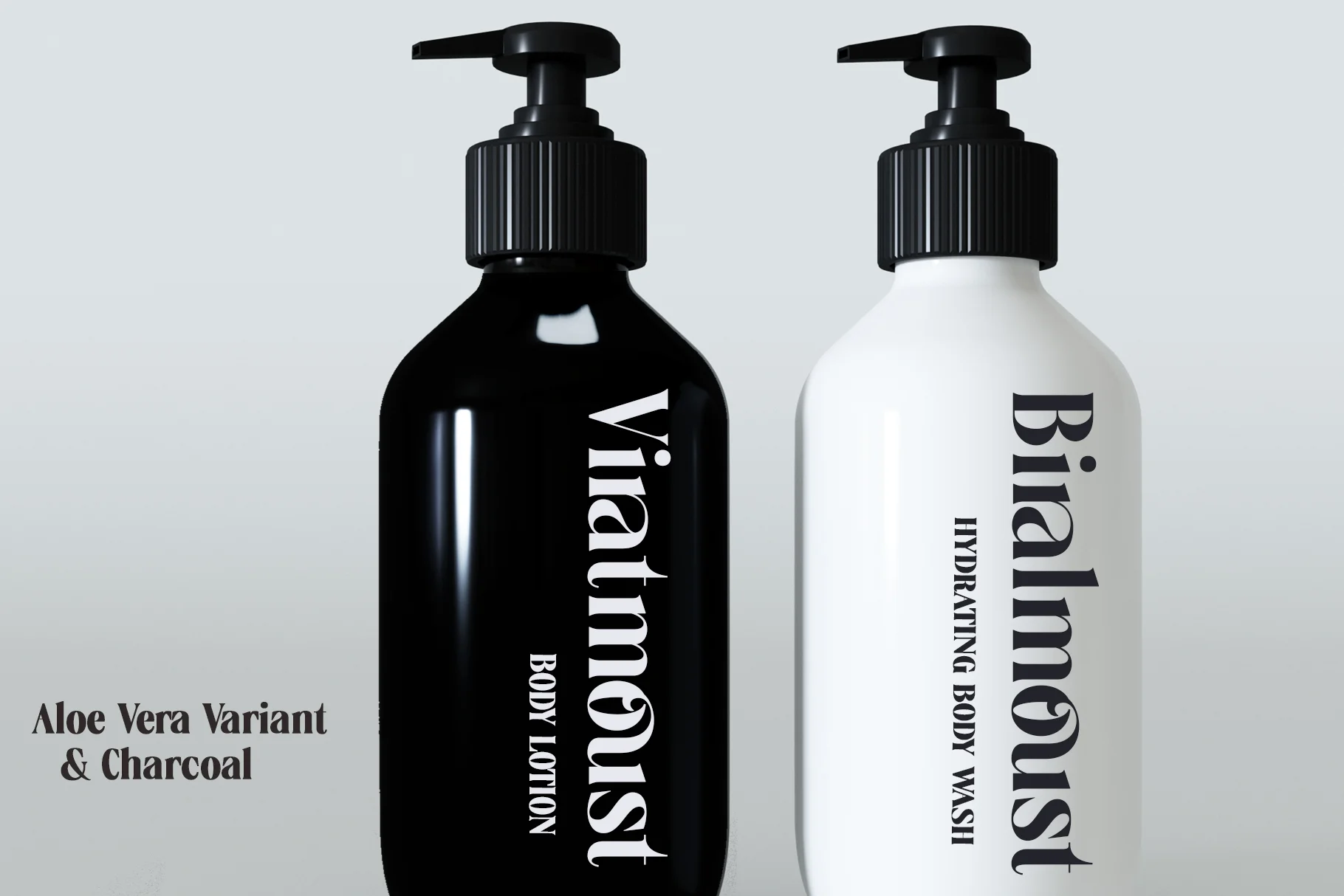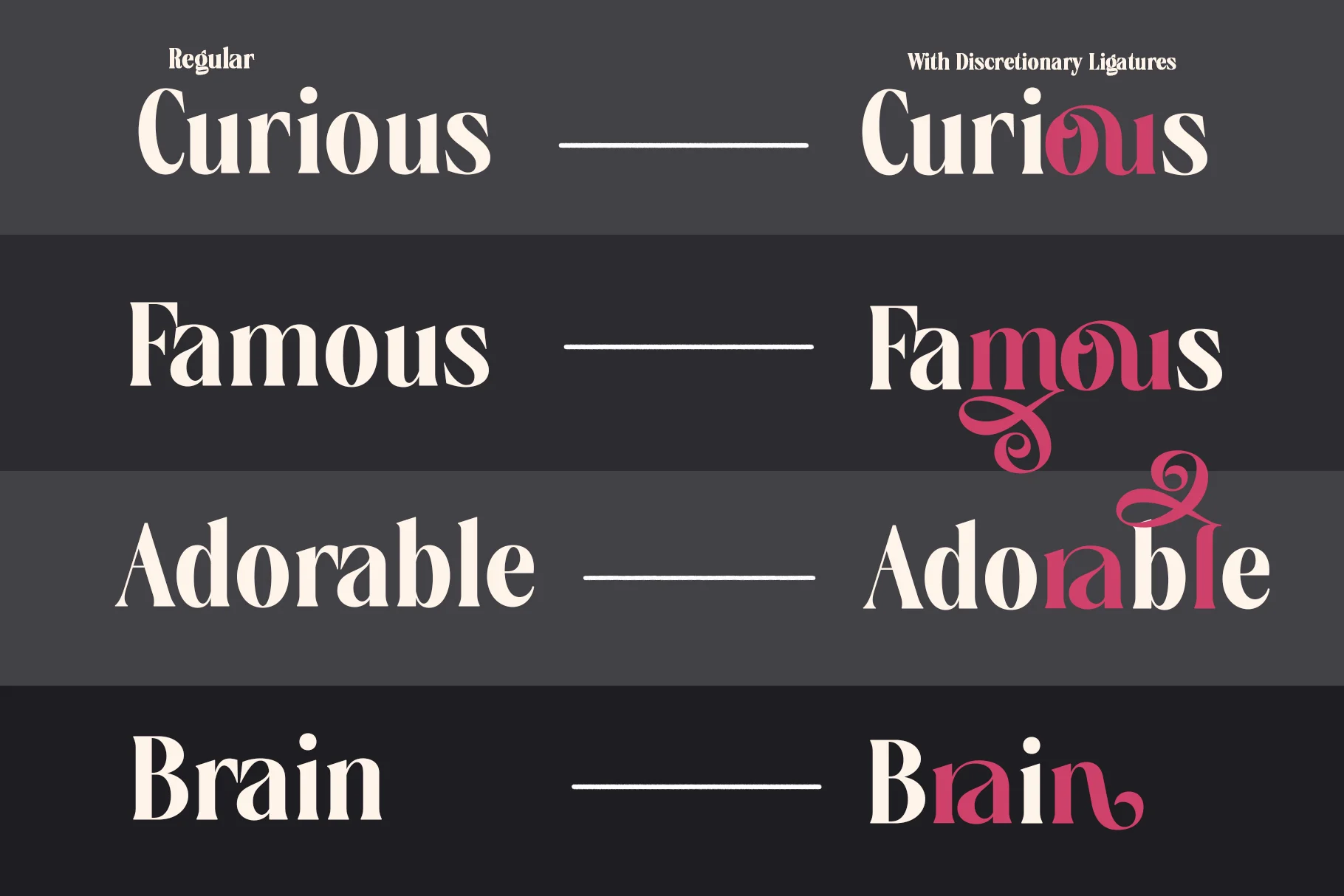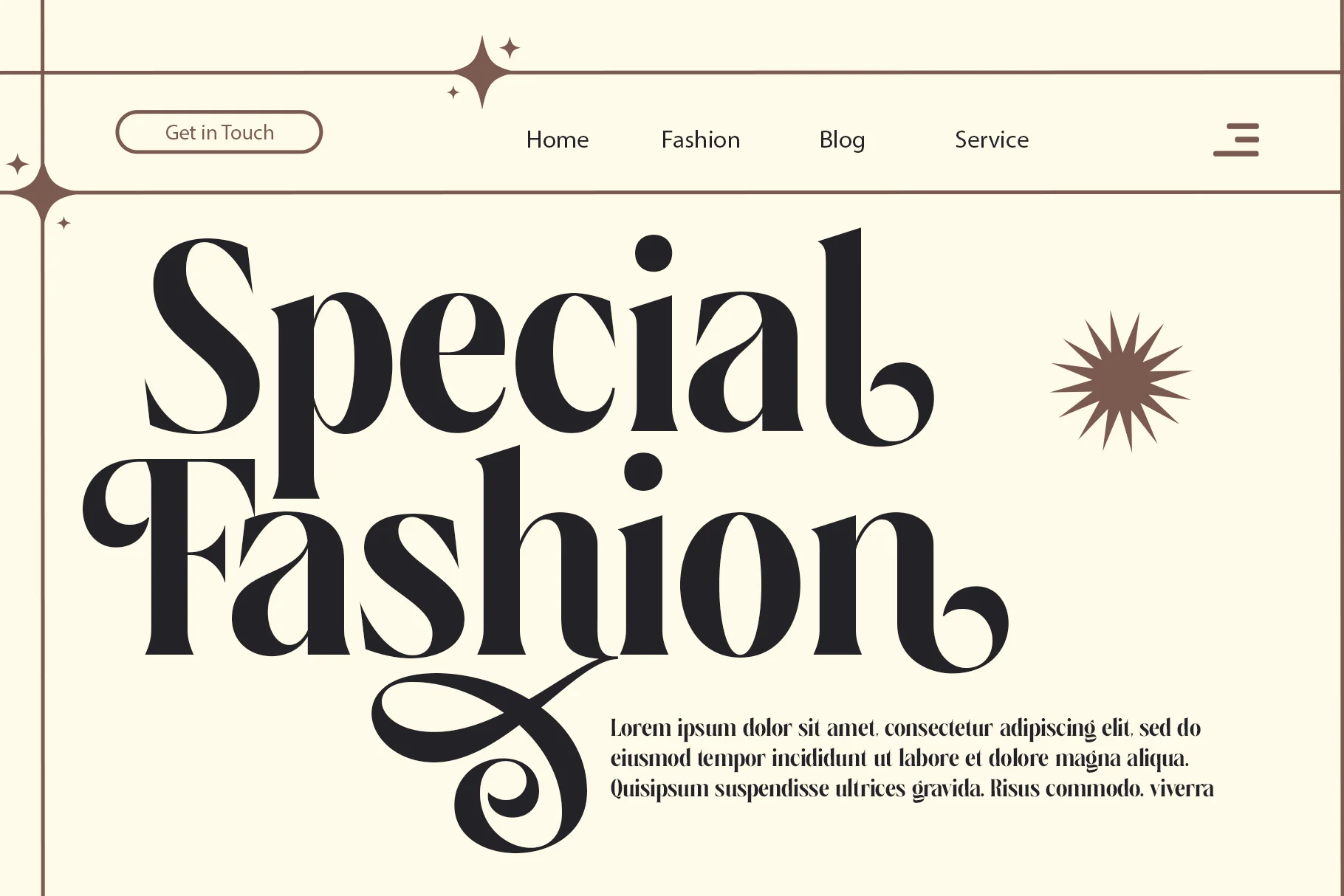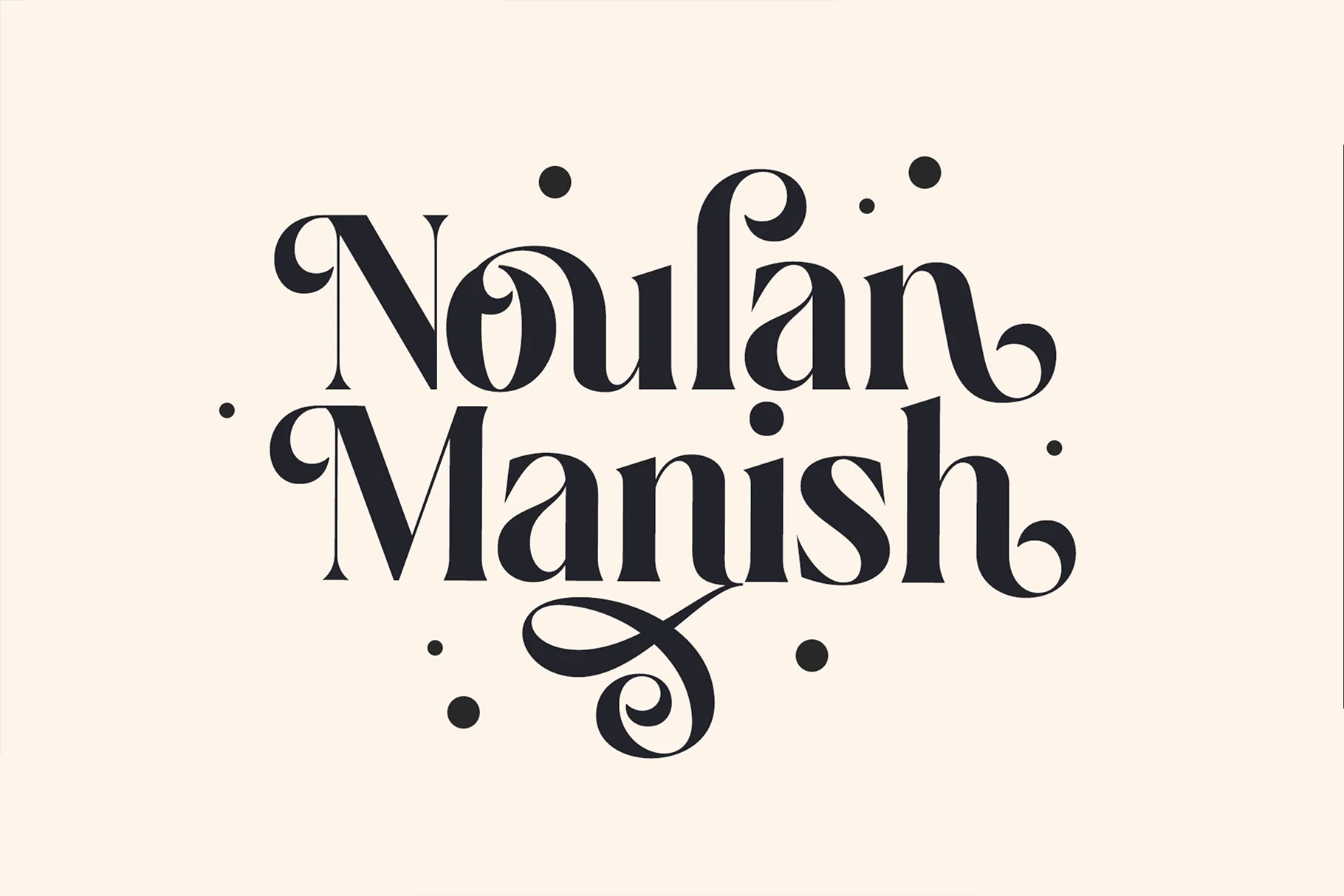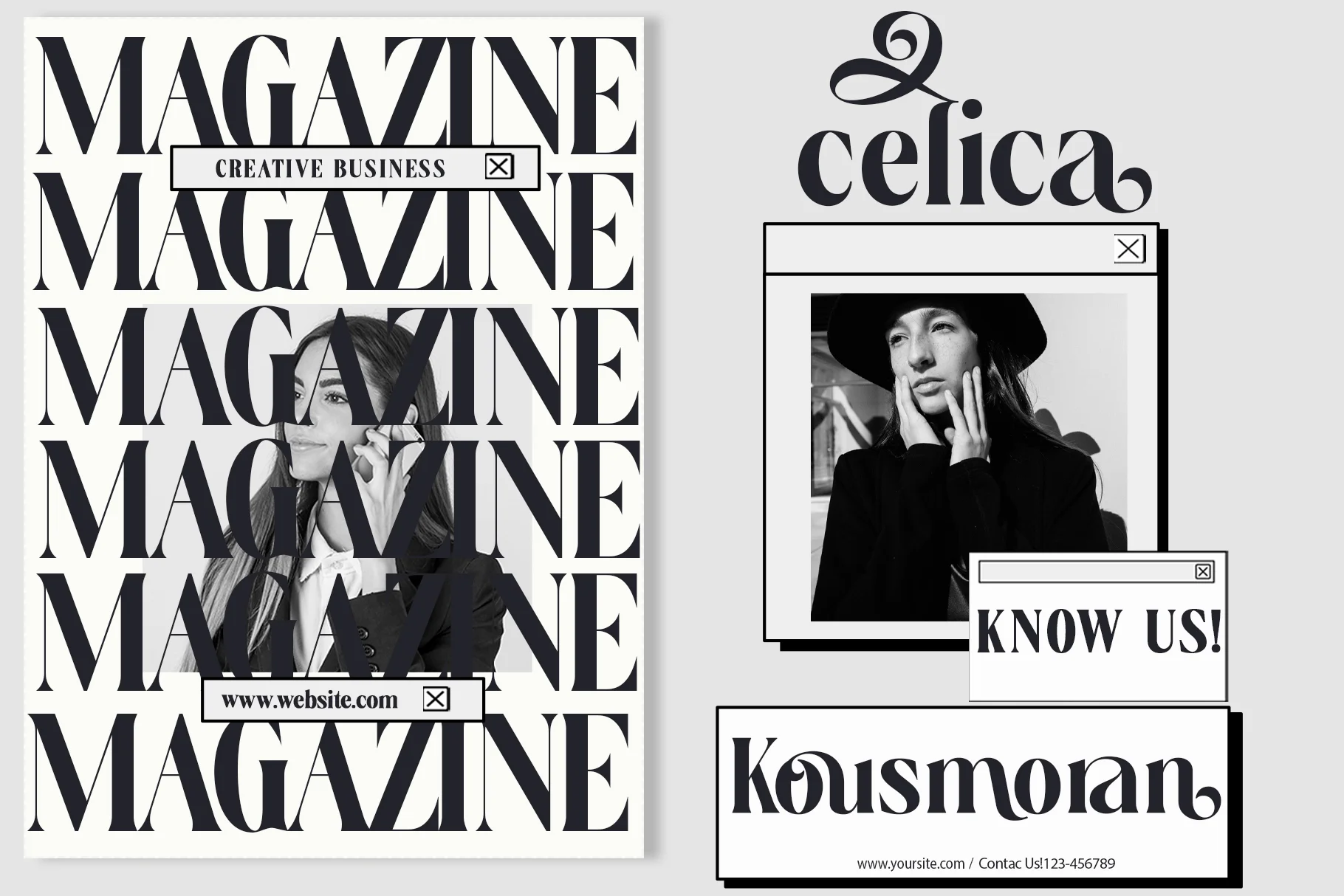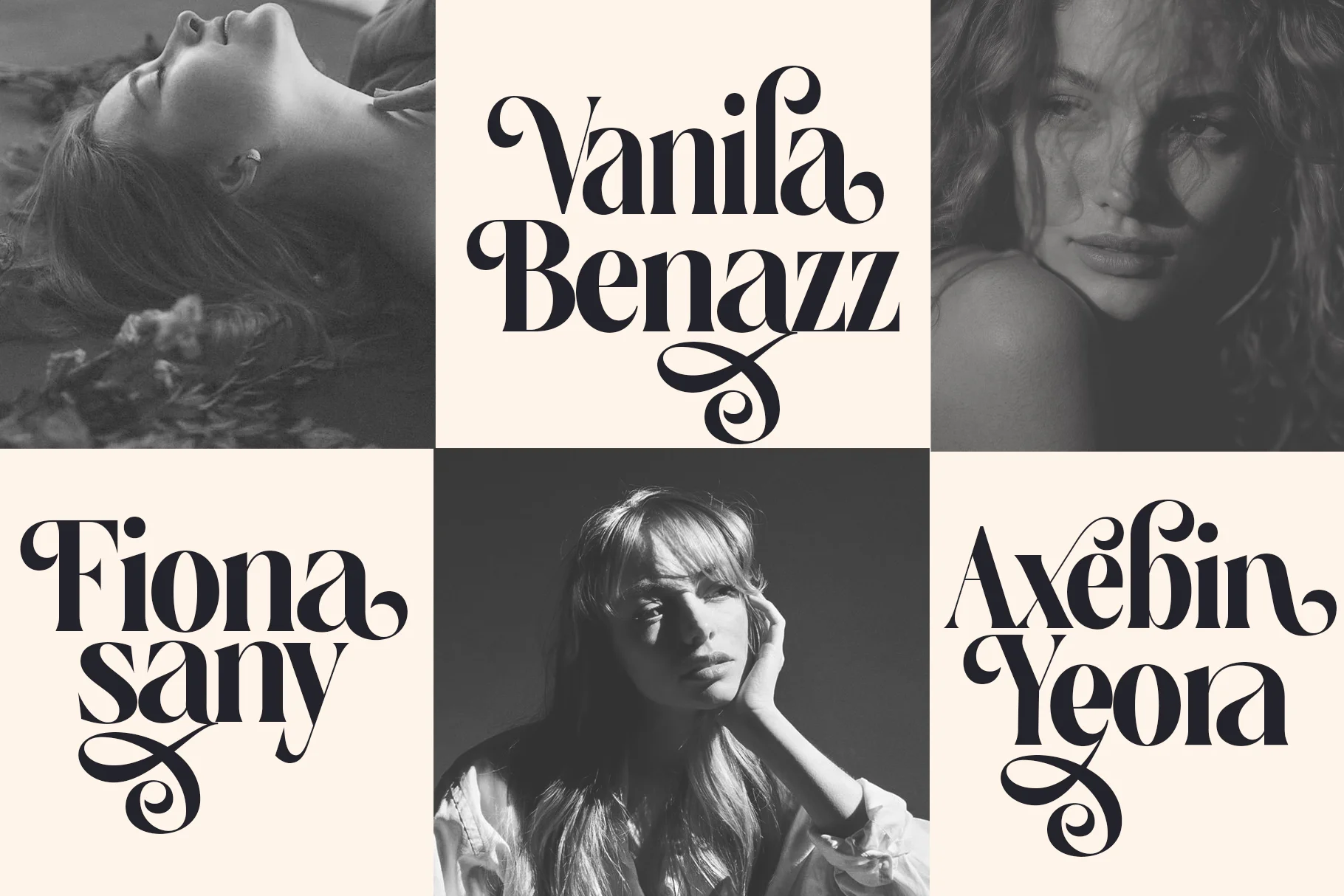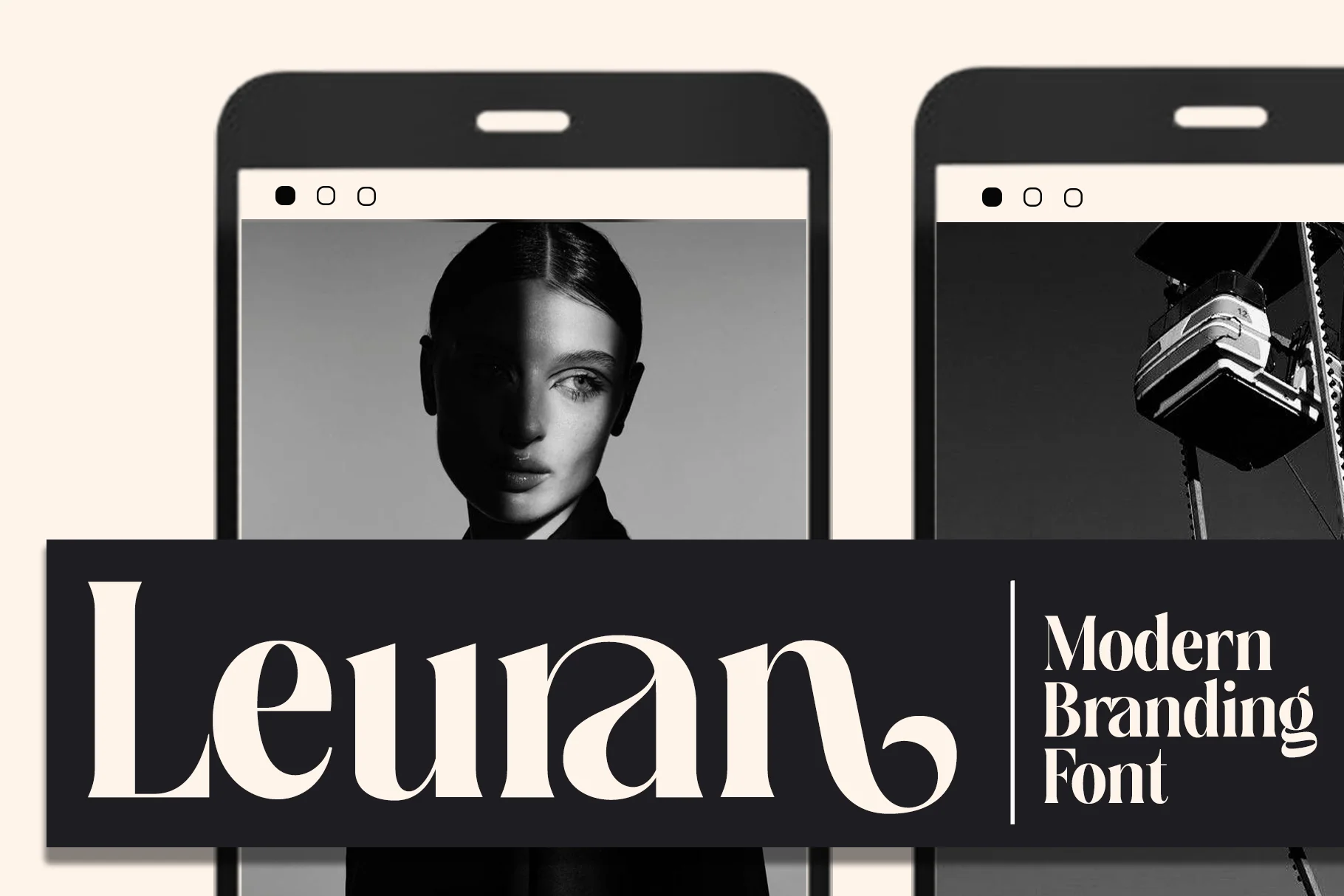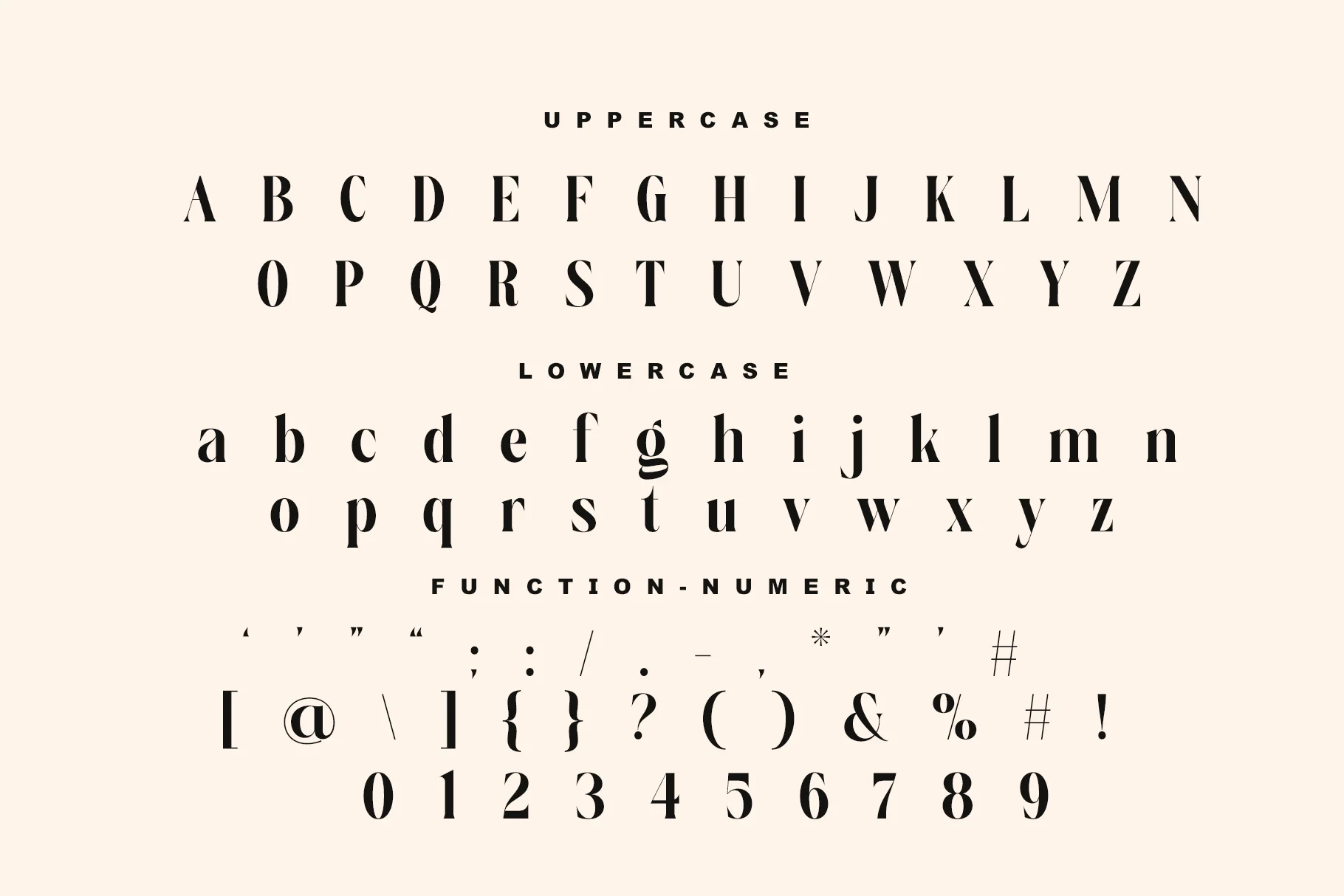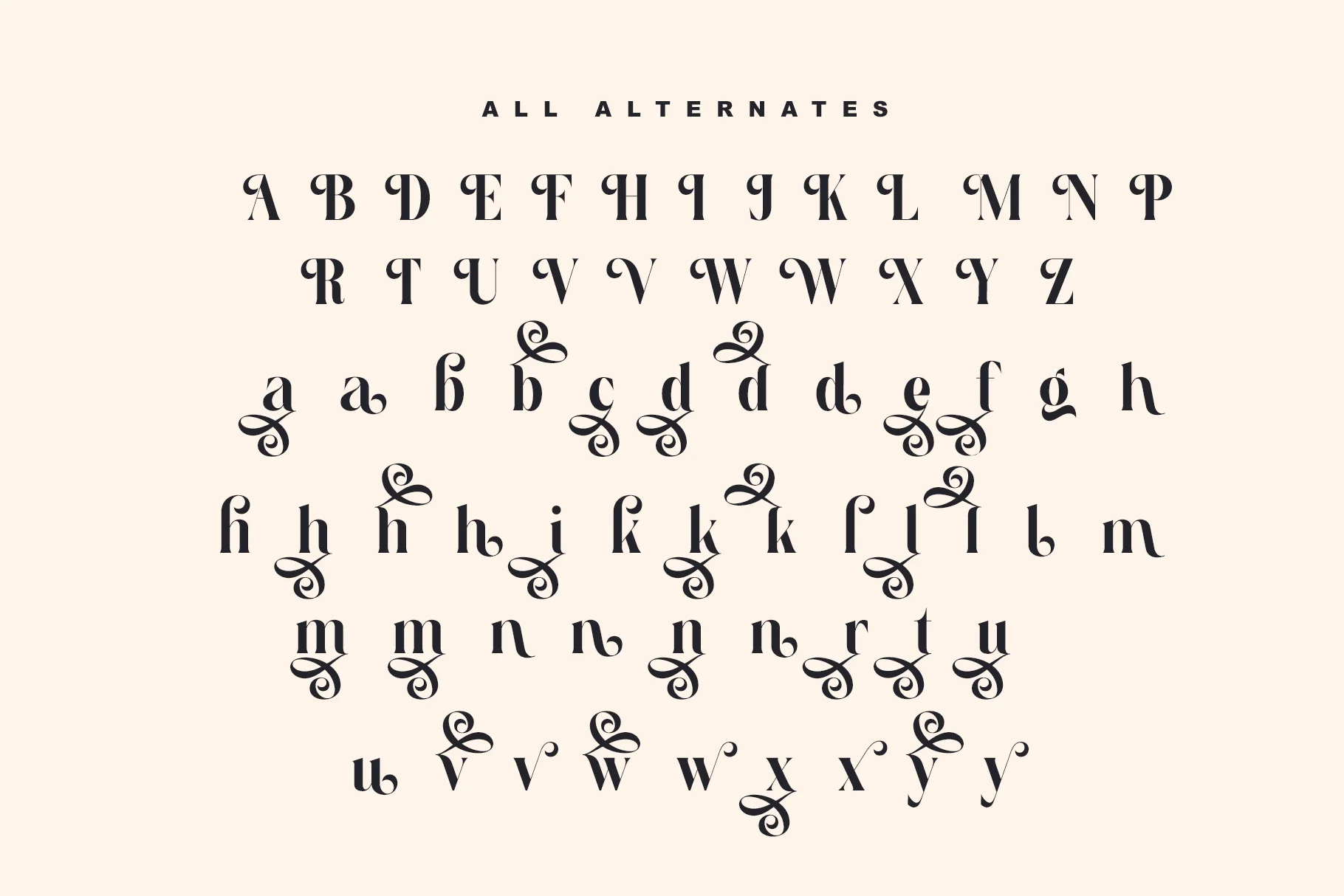
Noulan Manish
**Noulan Manish** is a special modern stylistic style font. Made with accurate accuracy with beautiful curves. With alternative characters and ligatures that make your work very special. It is perfect for branding design, logos, greeting cards, title packaging. and other designs. Immediately use our fonts to make your work even more amazing.
**Noulan Manish** is also included full set of:
*uppercase and lowercase letters
*multilingual support
*numerals
*punctuation
*Ligature Characters
*Stylistic Alternates Chararacter